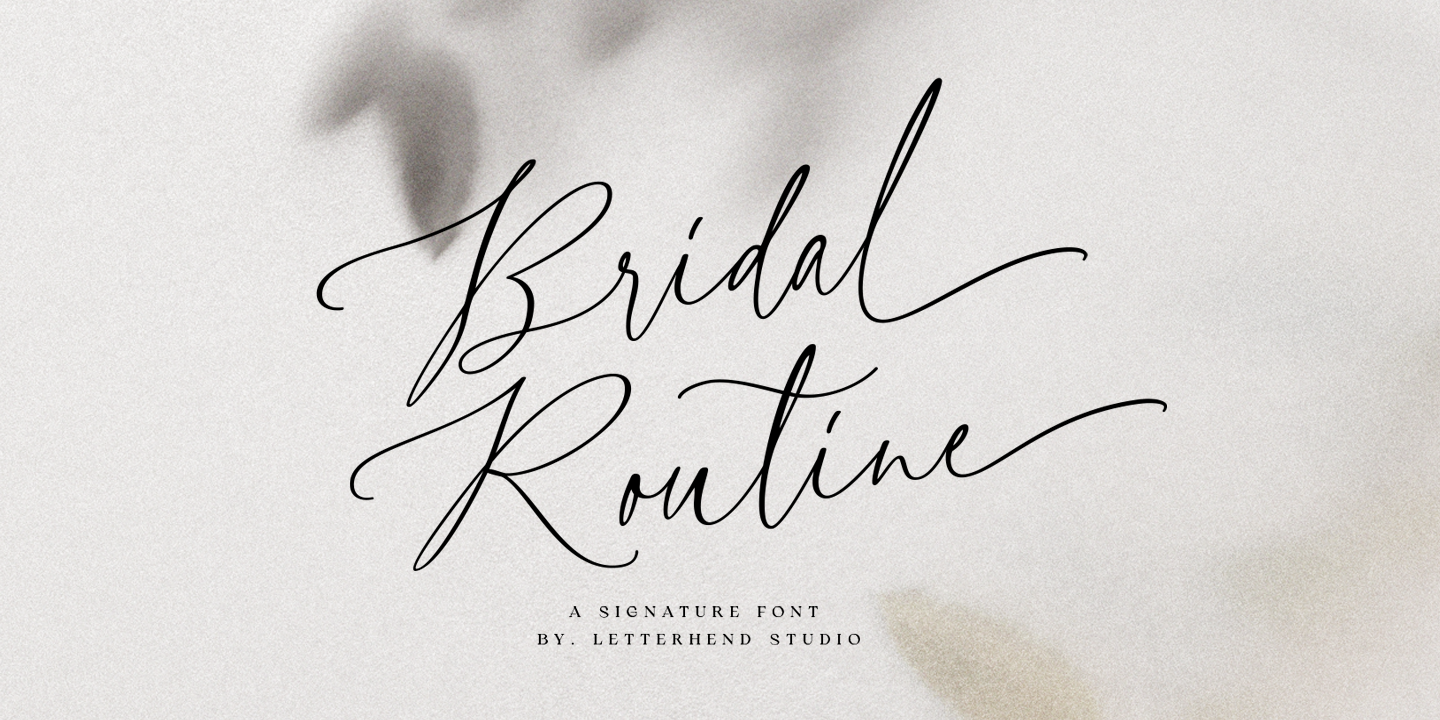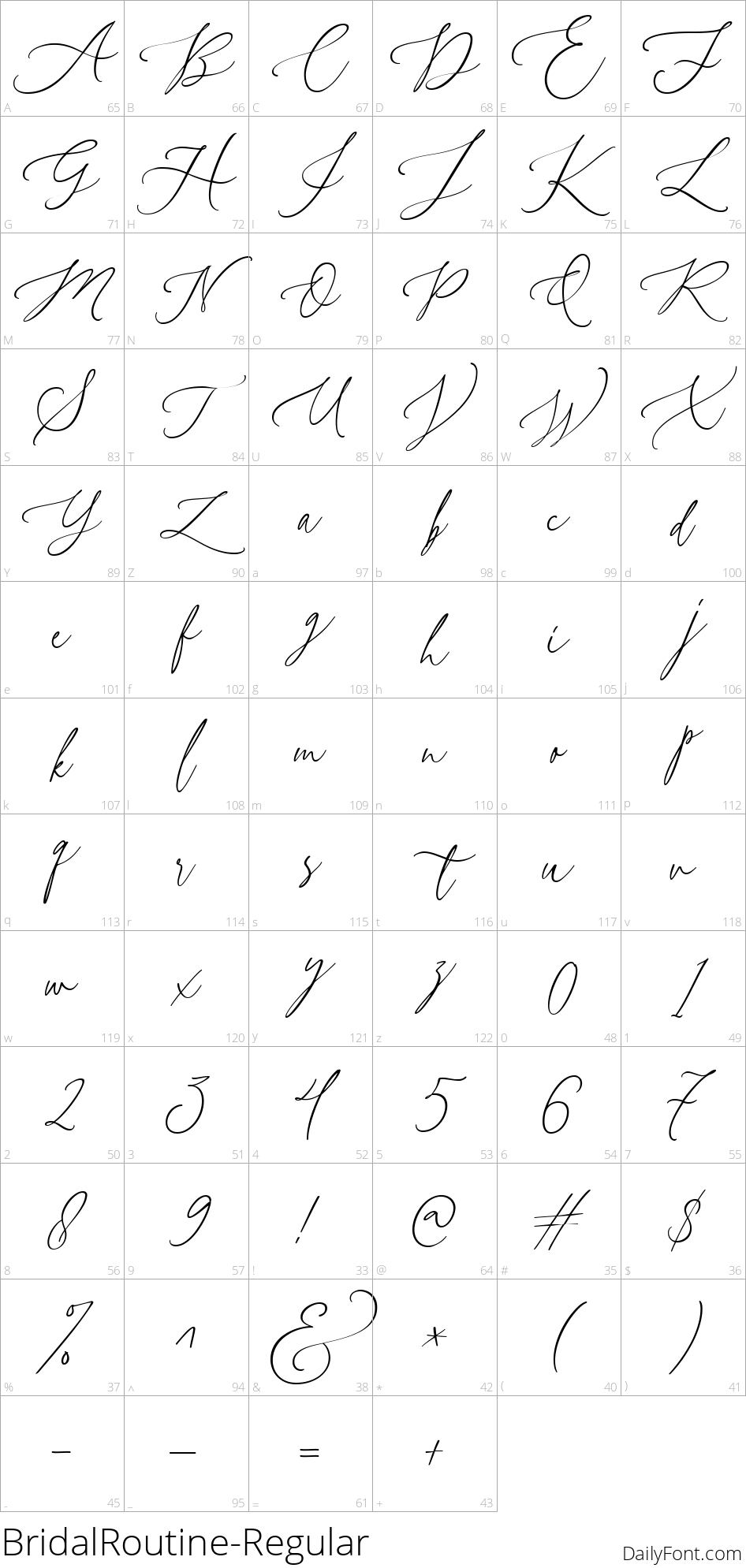
Bridal Routine
Bridal Routine is an exquisite signature script font that captures the essence of elegant handwriting. Designed meticulously, this font offers a natural look with stylistic alternates and ligatures, closely mimicking the nuances of manual writing. This feature makes it an excellent choice for those looking to enhance their design projects with a personal touch.
Perfectly suited for a range of formal applications, Bridal Routine shines when used for logos, invitations, labels, and greeting cards. Its versatility extends to fashion branding, packaging, magazines, and novels, making it a powerful tool for any advertising purpose. With an array of uppercase and lowercase letters, numbers, and punctuation, this font is multilingual and PUA encoded, ensuring accessibility for diverse design needs. Transform your creative projects with the beauty of Bridal Routine and leave a lasting impression on your audience.